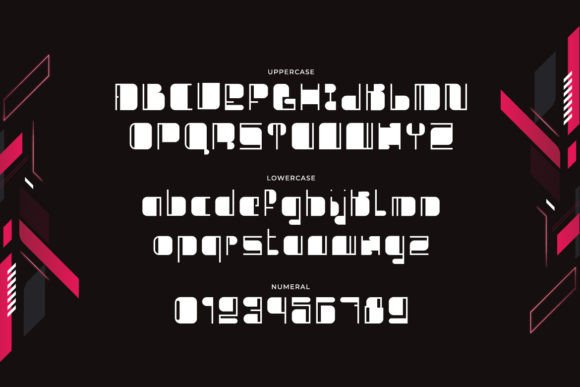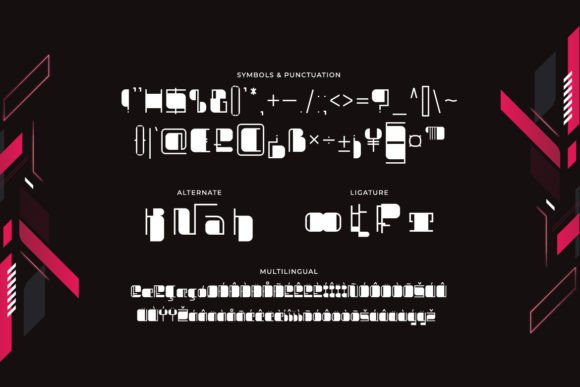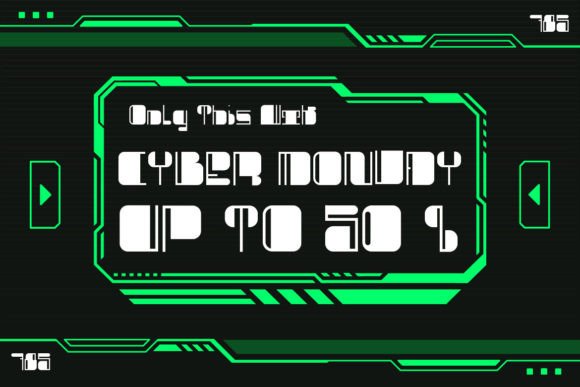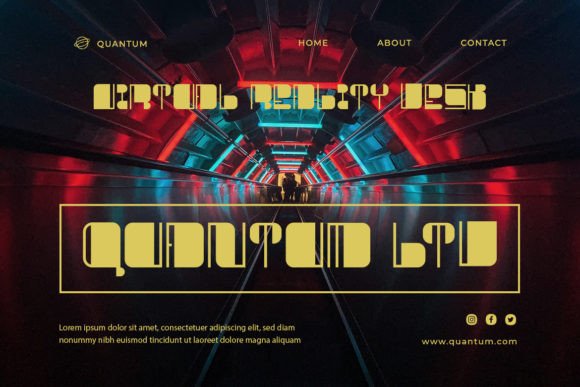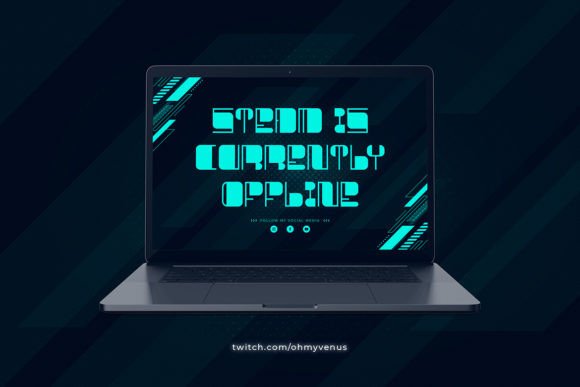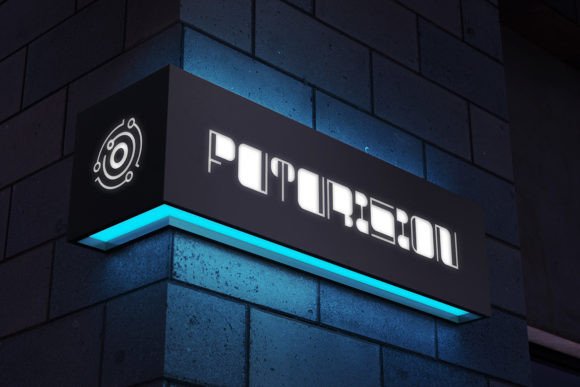
Introduction to Neofliks Font
Neofliks is a bold, cool, and unique display font.
Its quirky and stylish look makes it the perfect choice for creating a large variety of projects that require daring and fun typography .